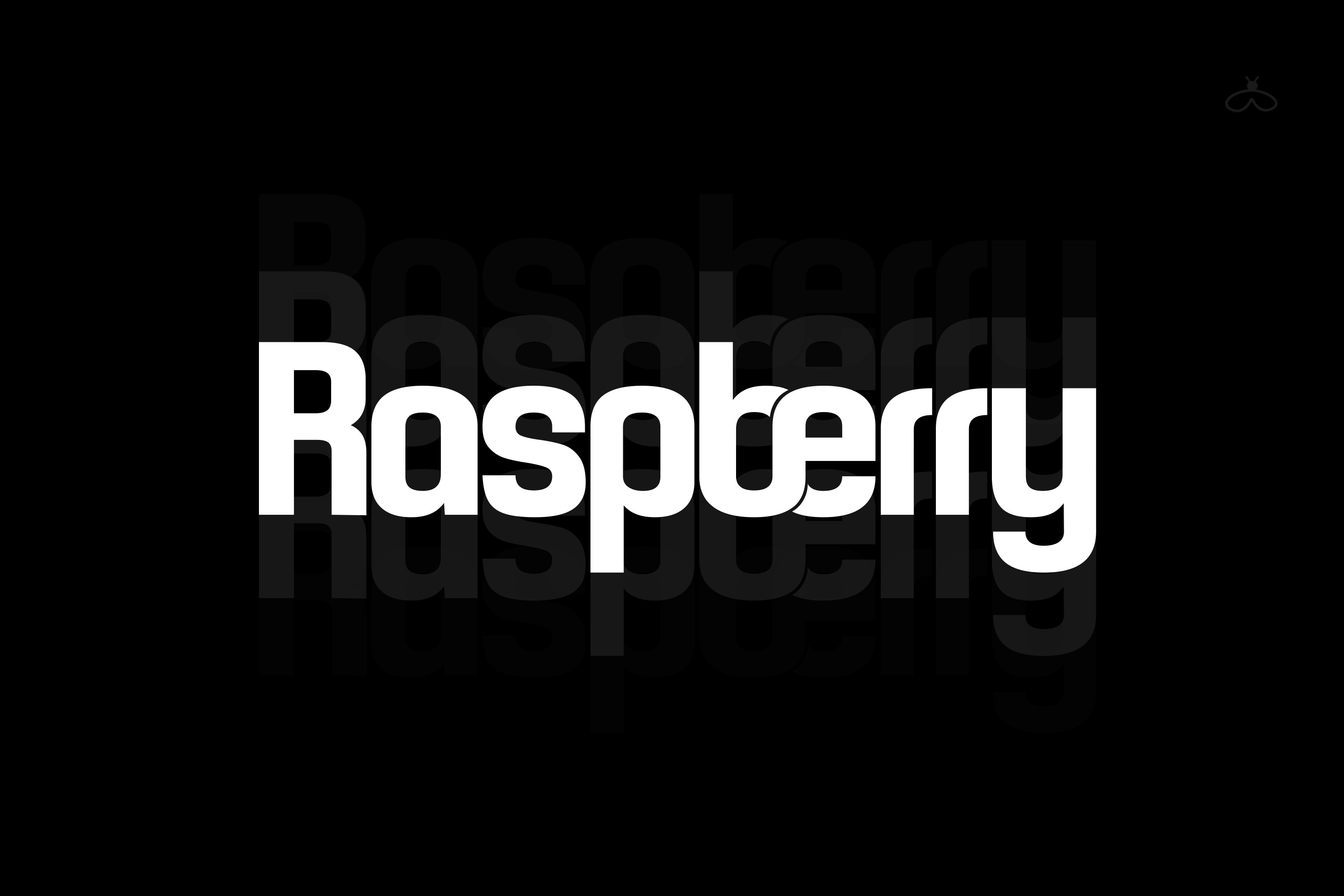
Raspberry Sturdy Typeface
Raspberry is a casual sans serif font. Simple and easy to use, this font will be very beautiful if you mix it with your various craft designs.